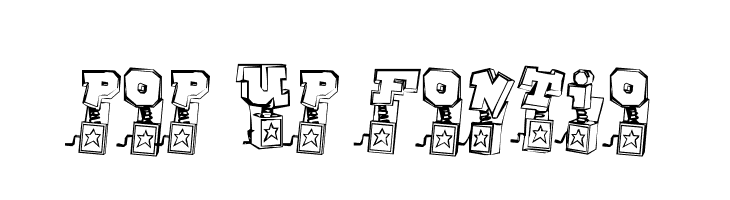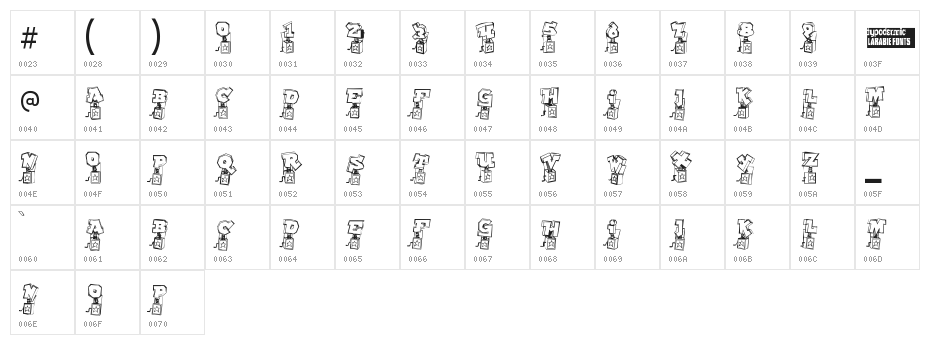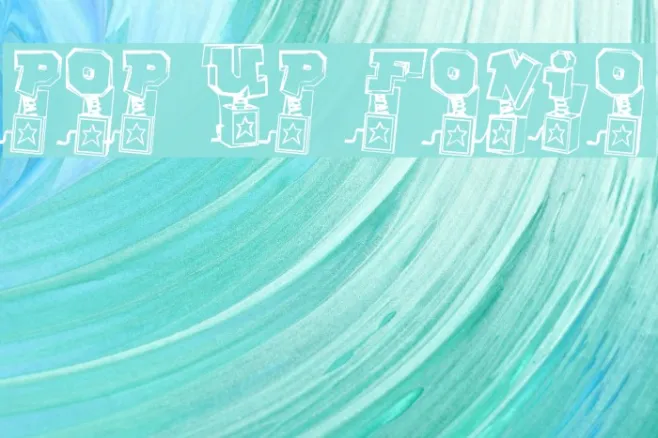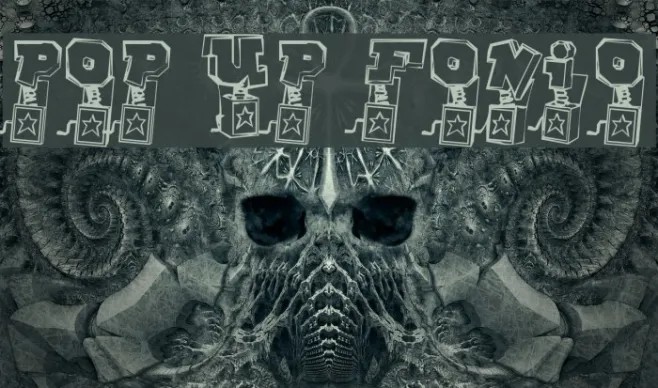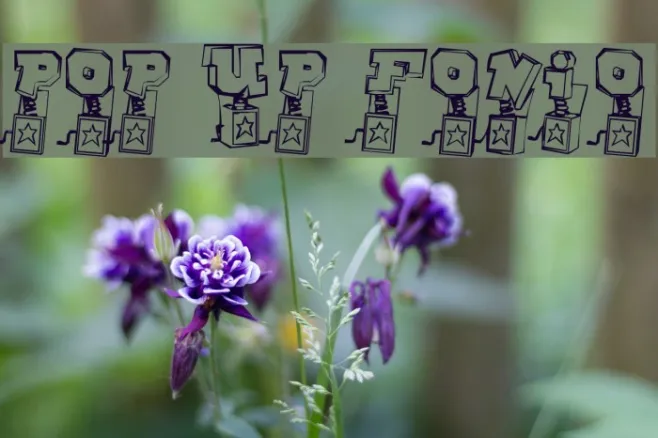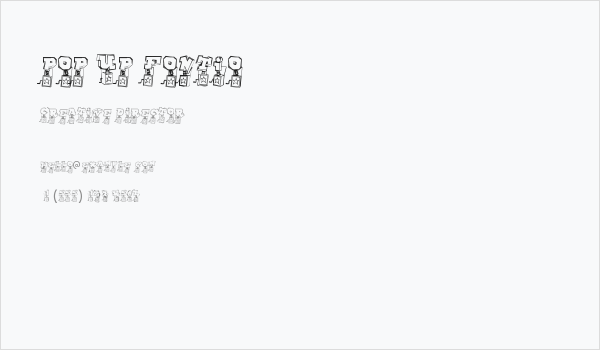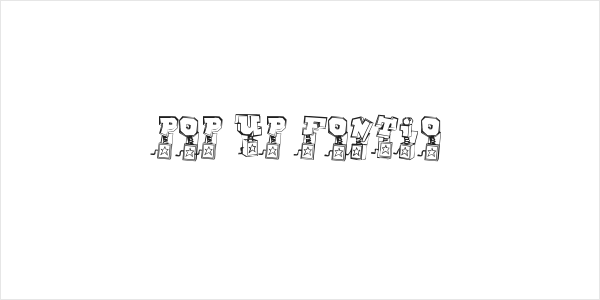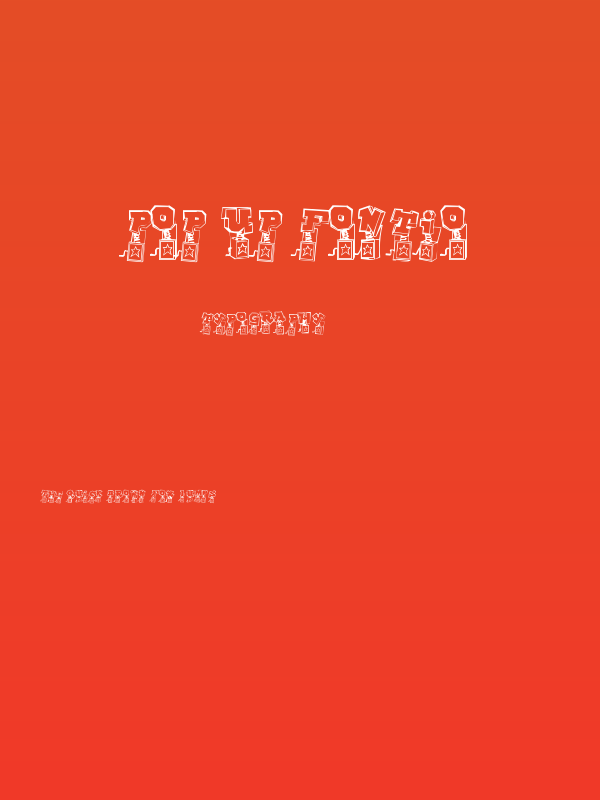
Pop Up Fontio Font
Pop Up Fontio Description
This playful and whimsical font features bold, three-dimensional letters that appear to pop out of a box, each adorned with a star motif. The design is highly decorative, with a cartoonish style that adds a sense of fun and excitement. Each character is uniquely crafted to maintain a consistent theme of surprise and delight, making it ideal for creative and engaging visual projects. The font's thick outlines and shadow effects enhance its three-dimensional appearance, giving it a dynamic and lively feel. The overall design is both eye-catching and entertaining, perfect for capturing attention in a variety of settings.